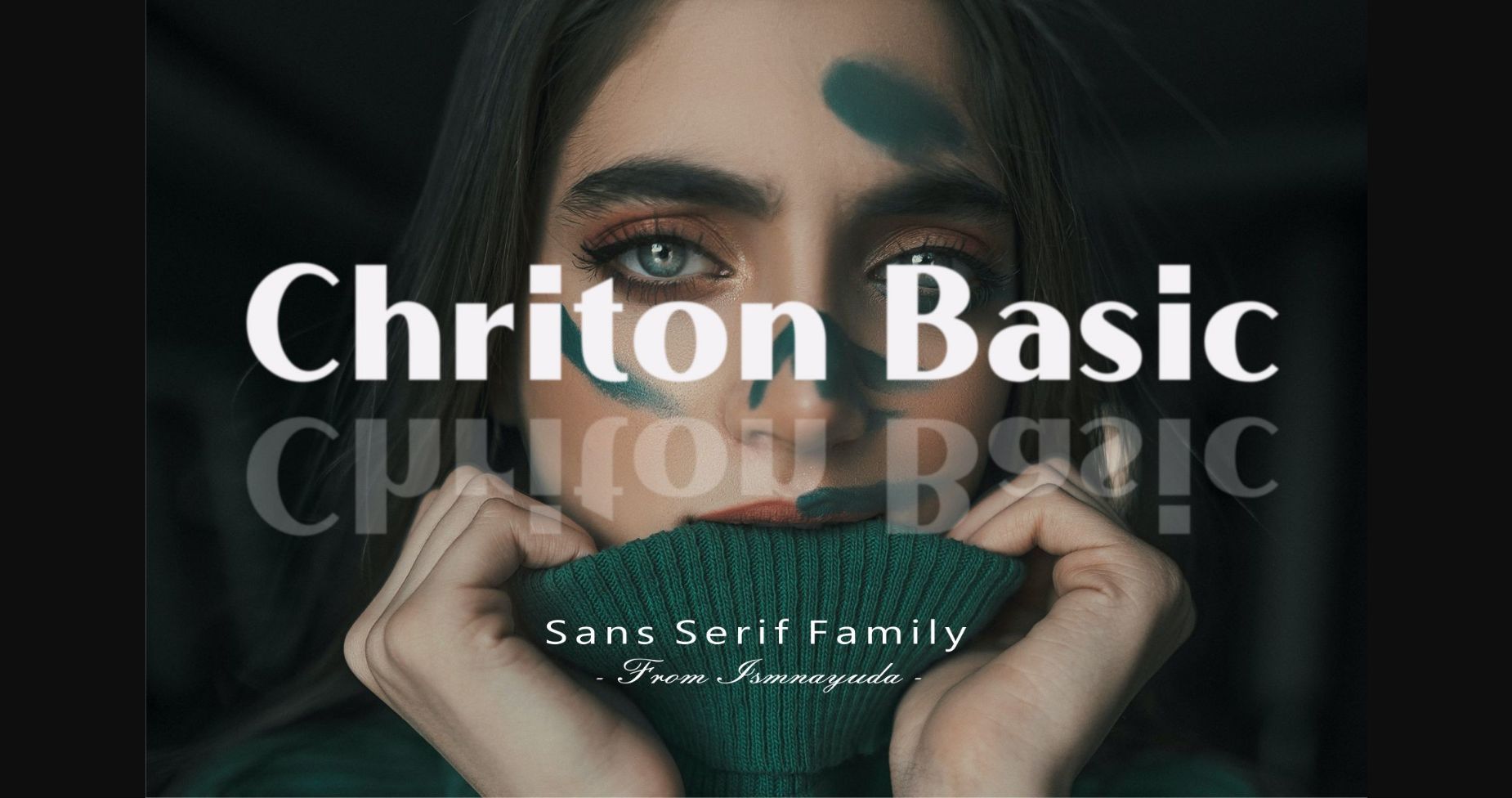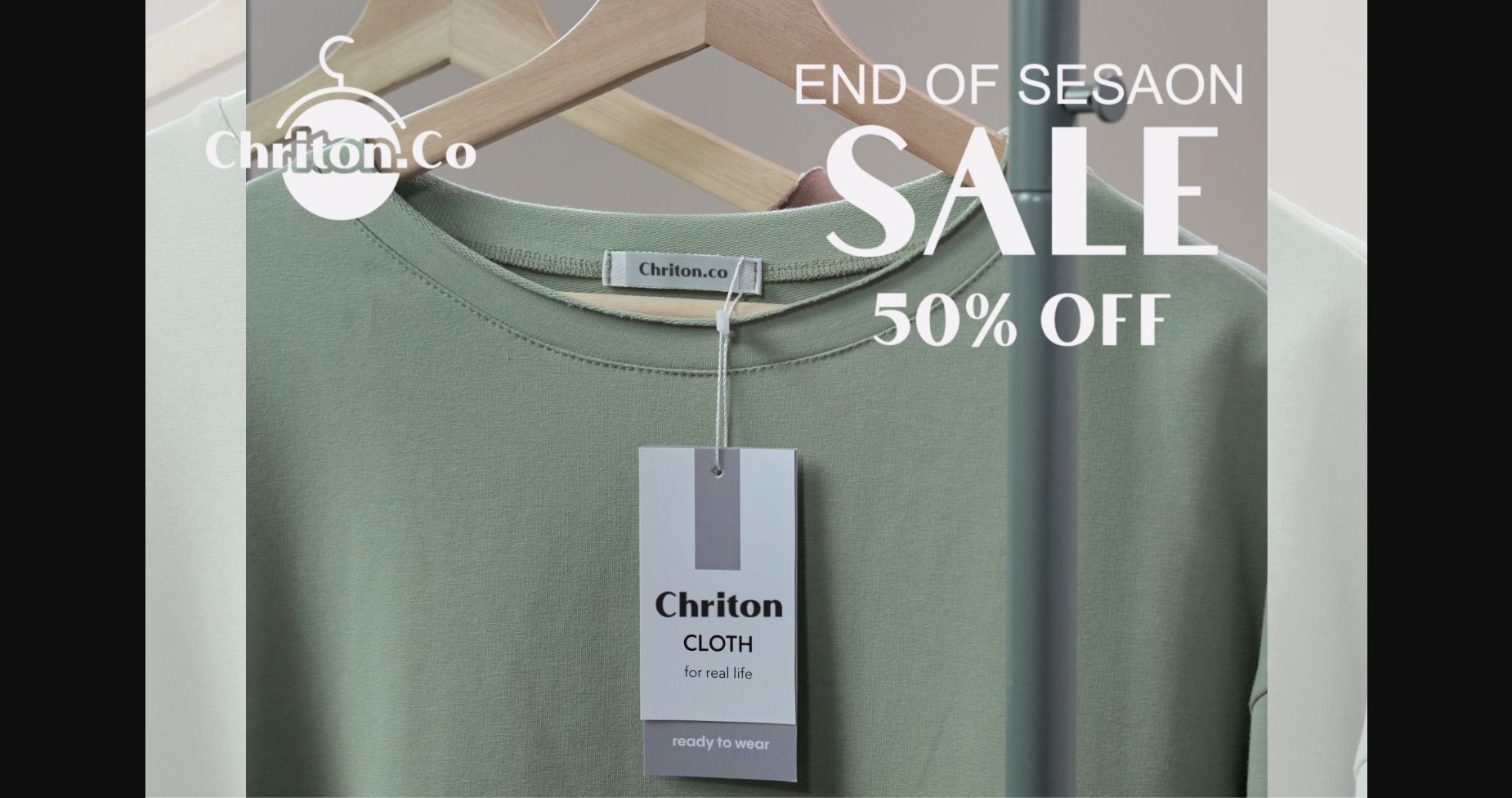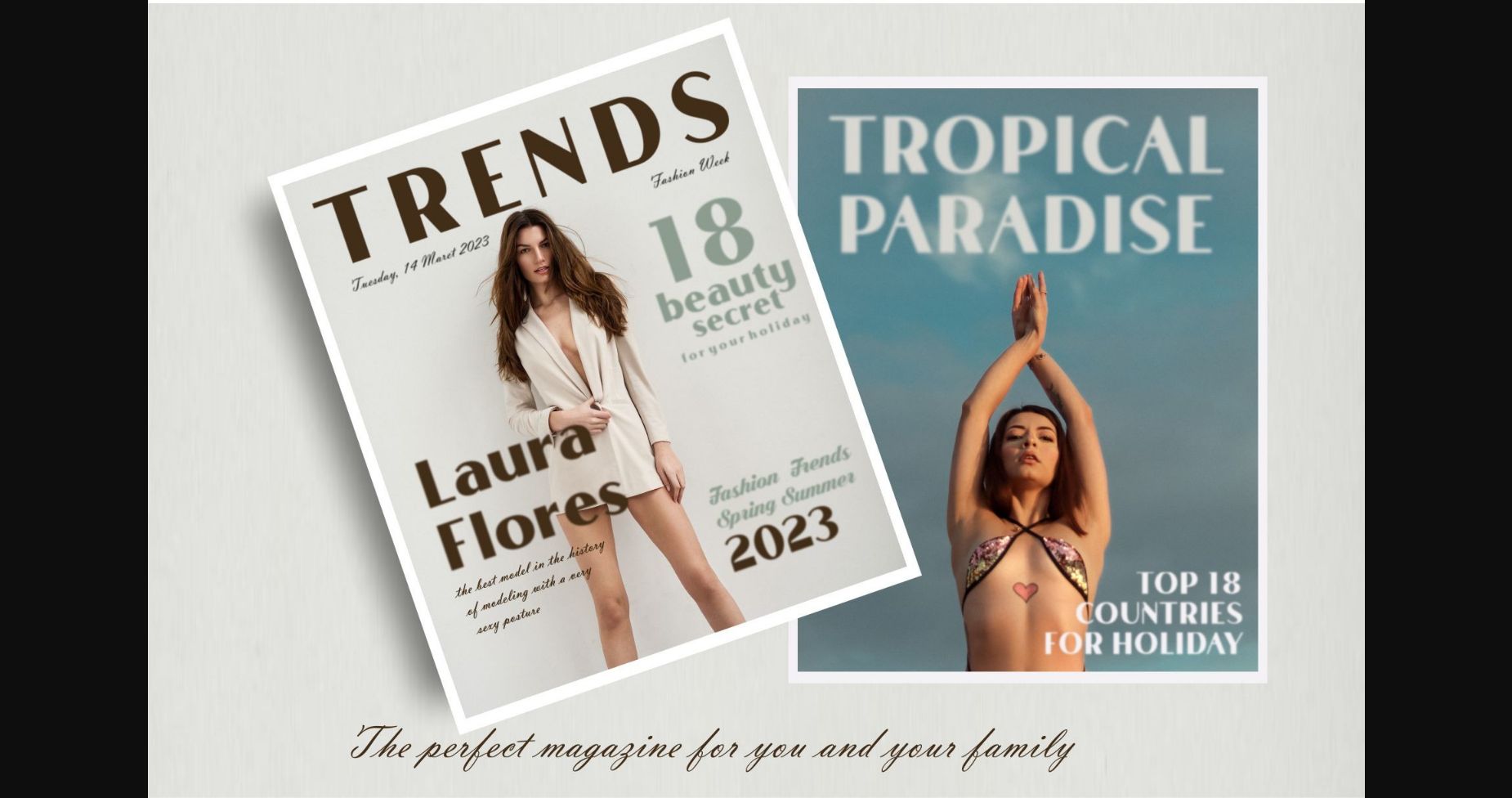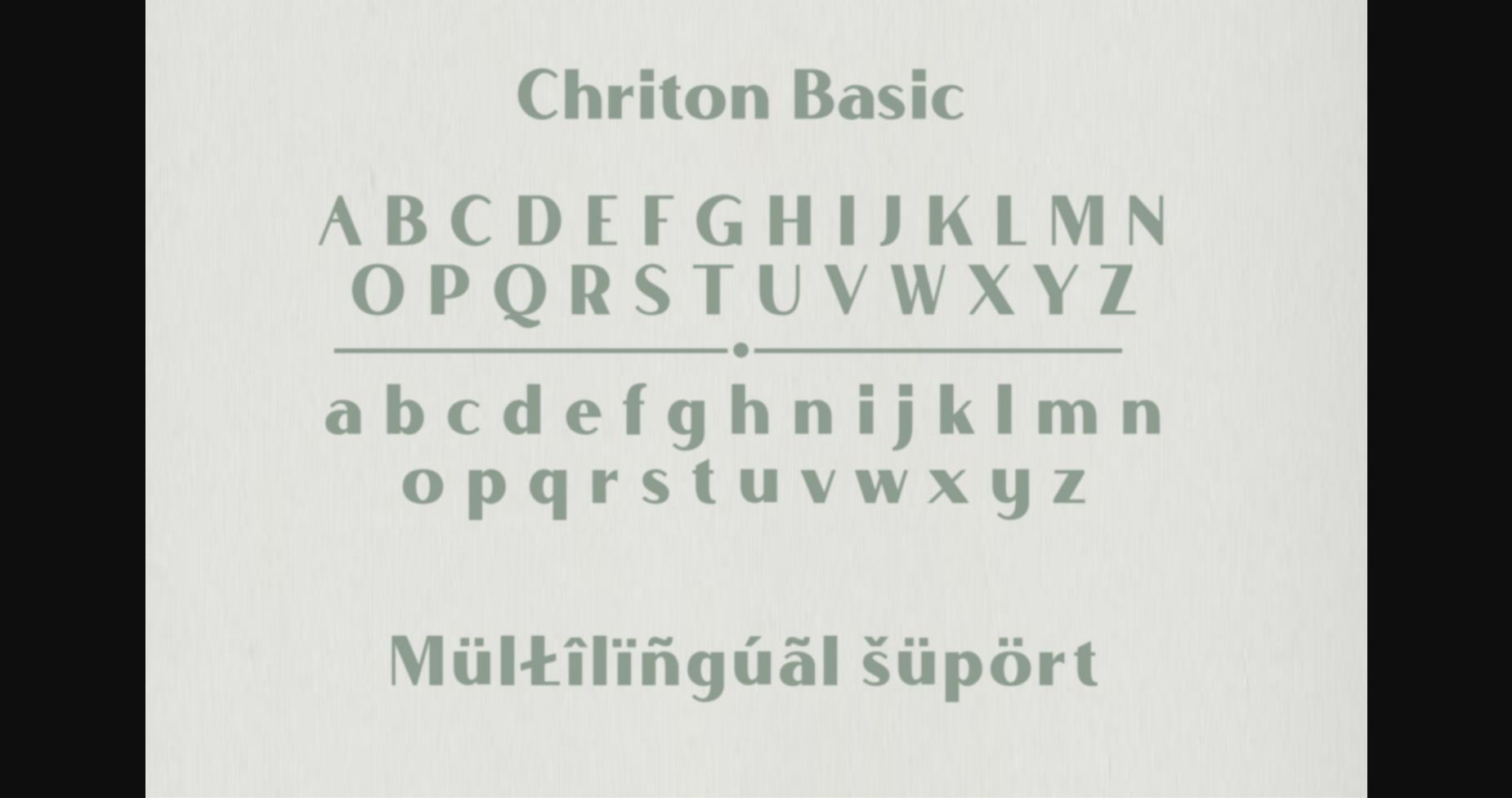
About Chriton Basic Font
Chriton is an elegant sans-serif font, that features a very delicate and classy look. Not too thin and not too thick, balanced and varied, Florania was designed to enhance the beauty of your projects.